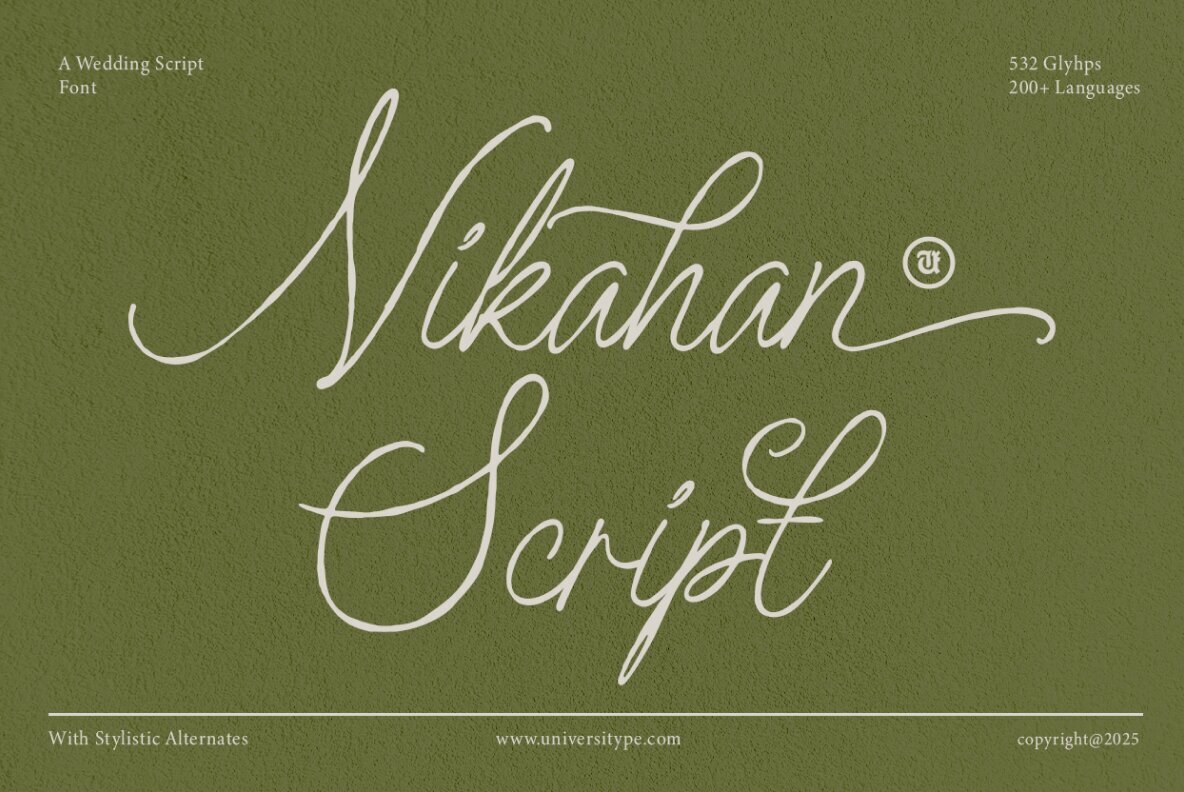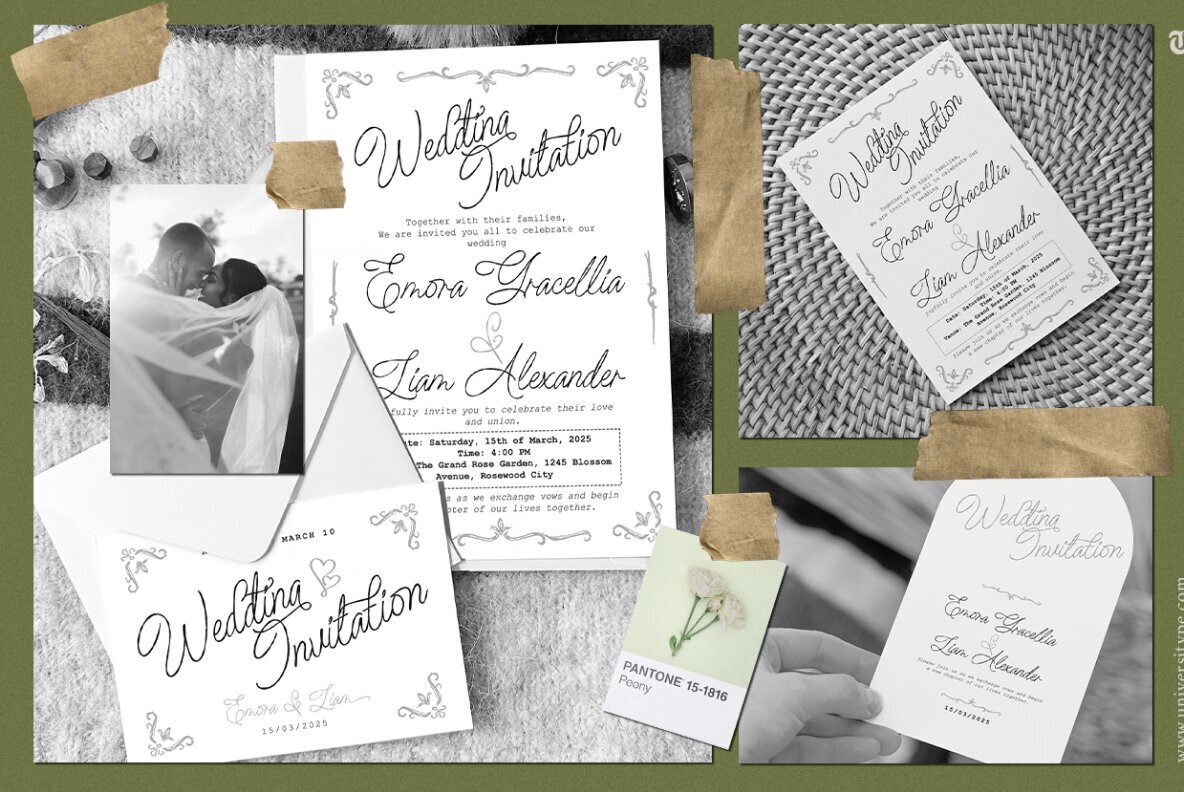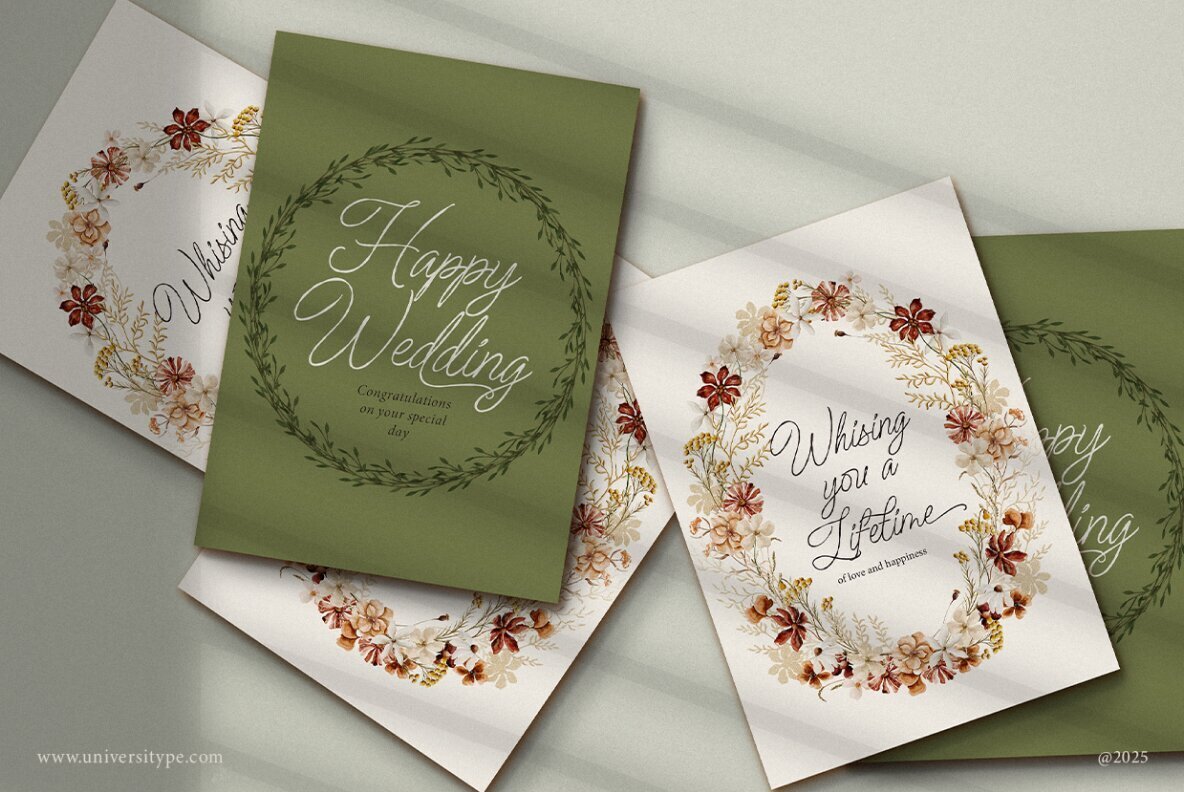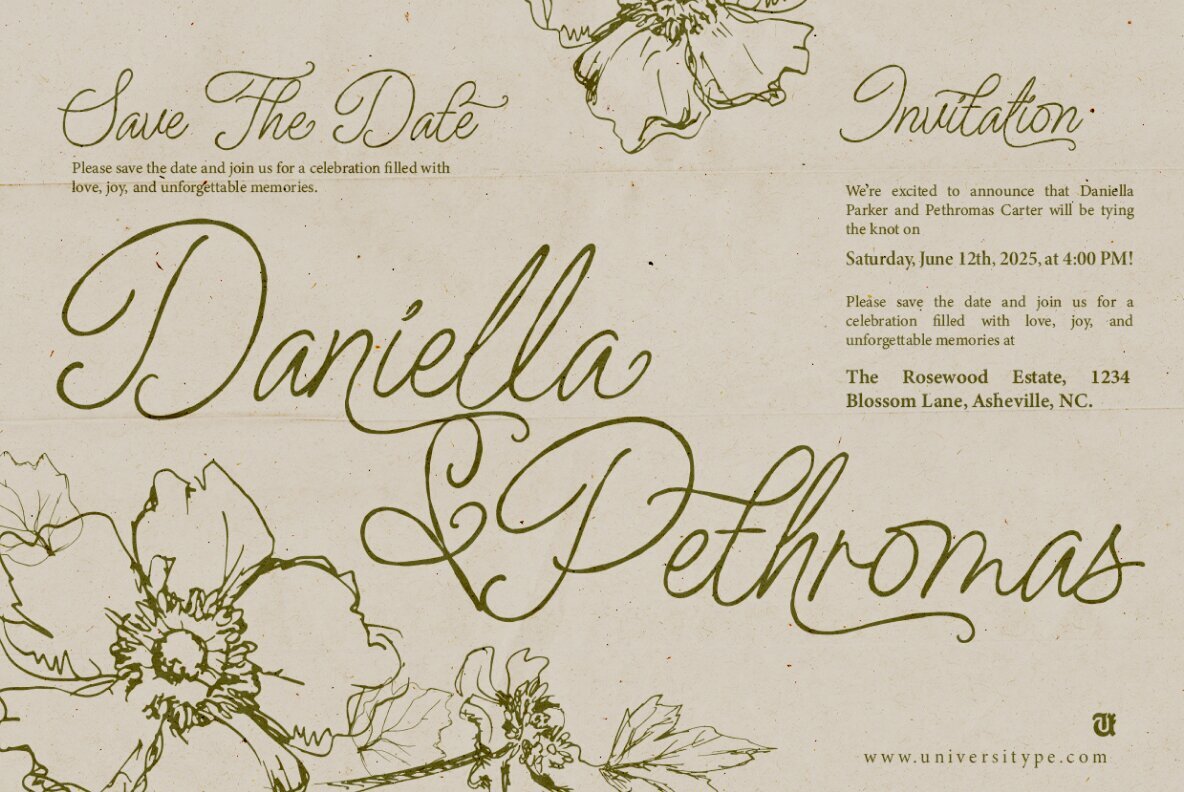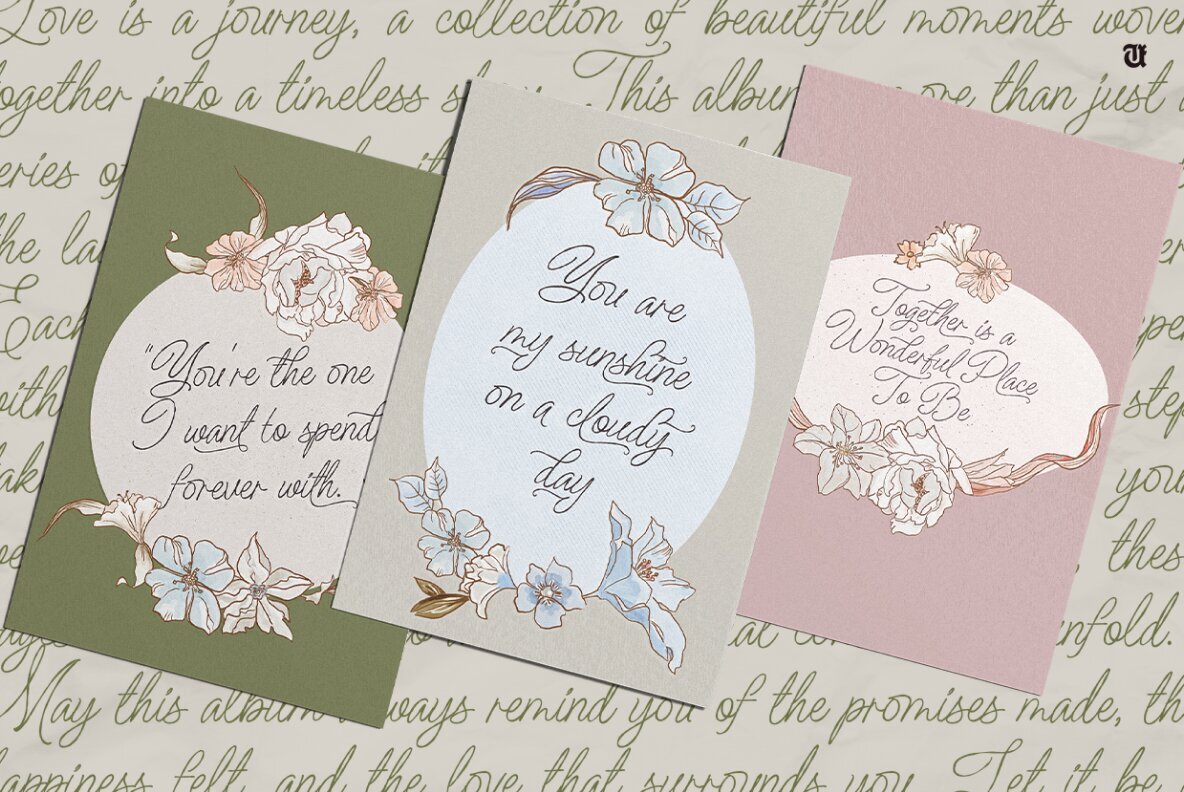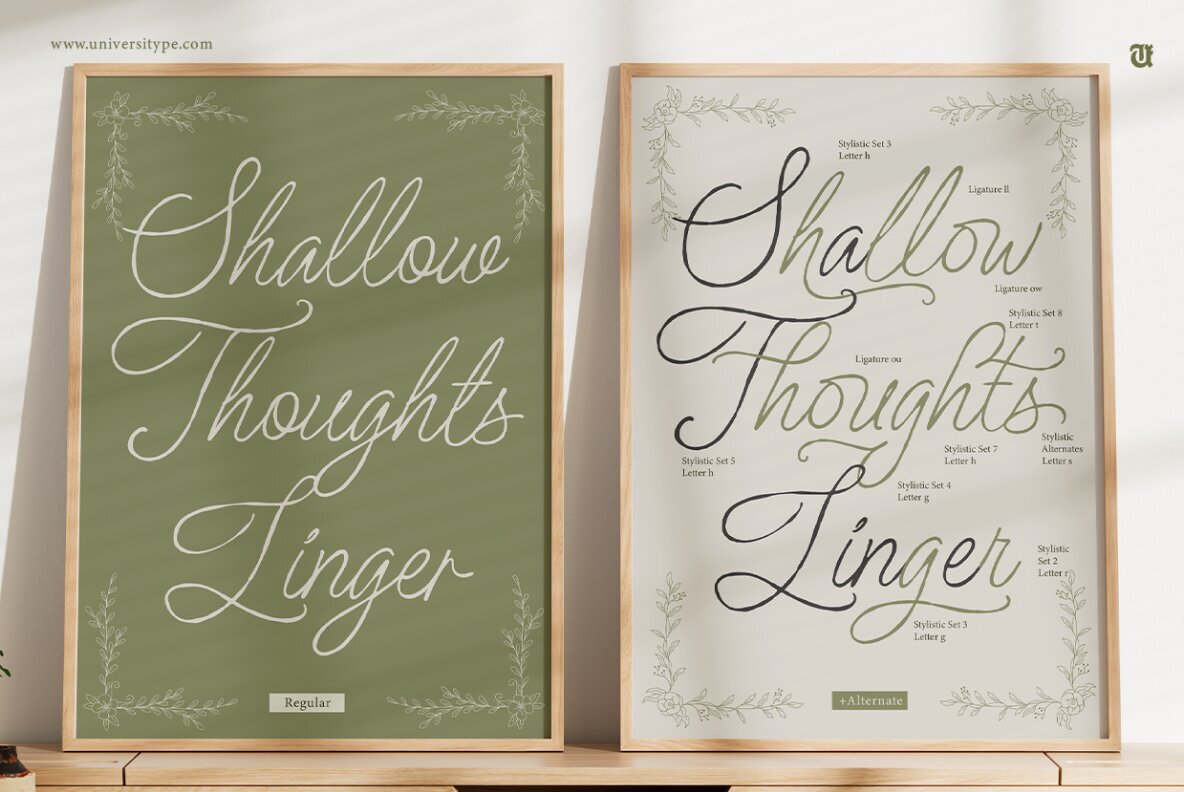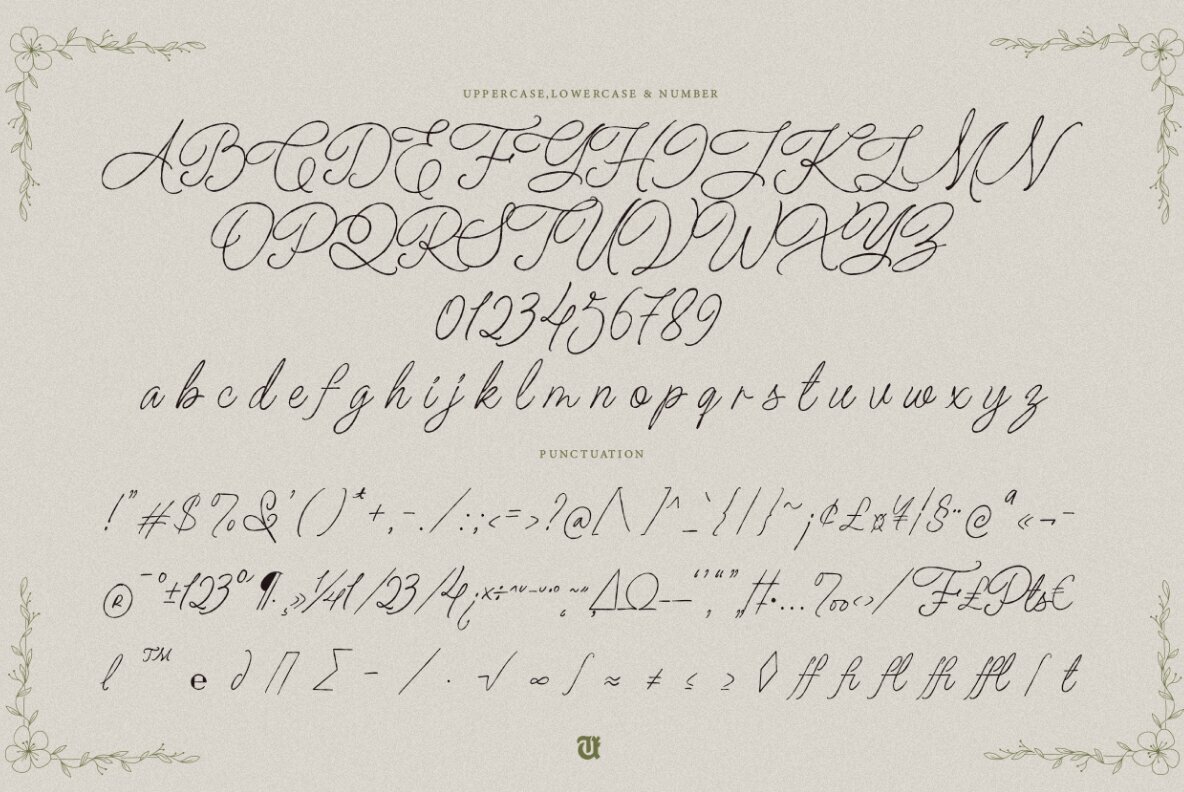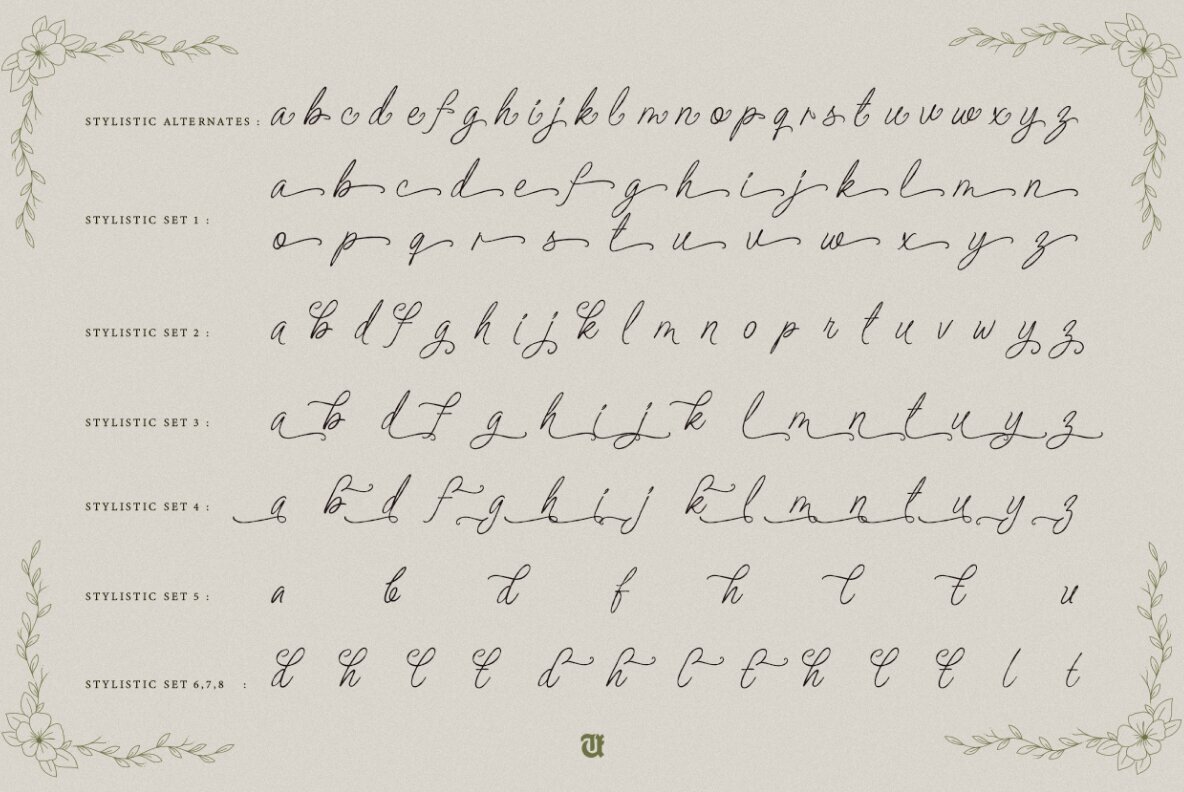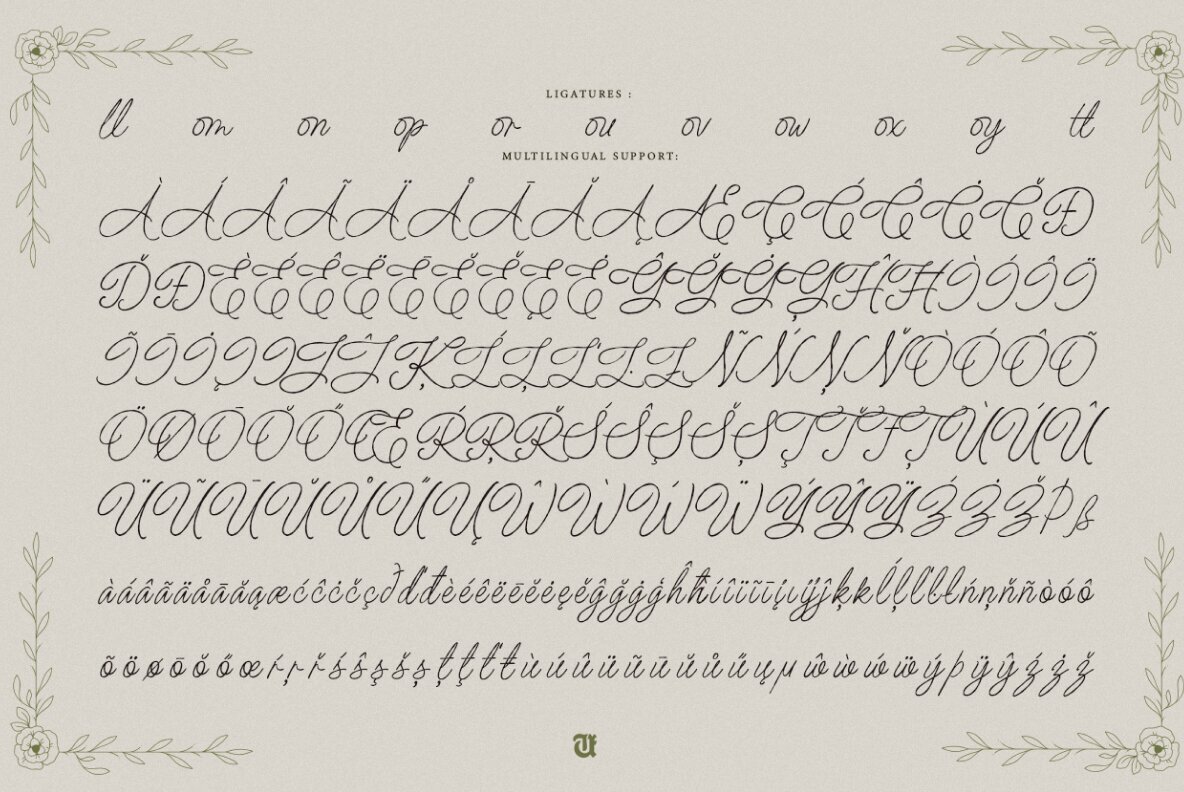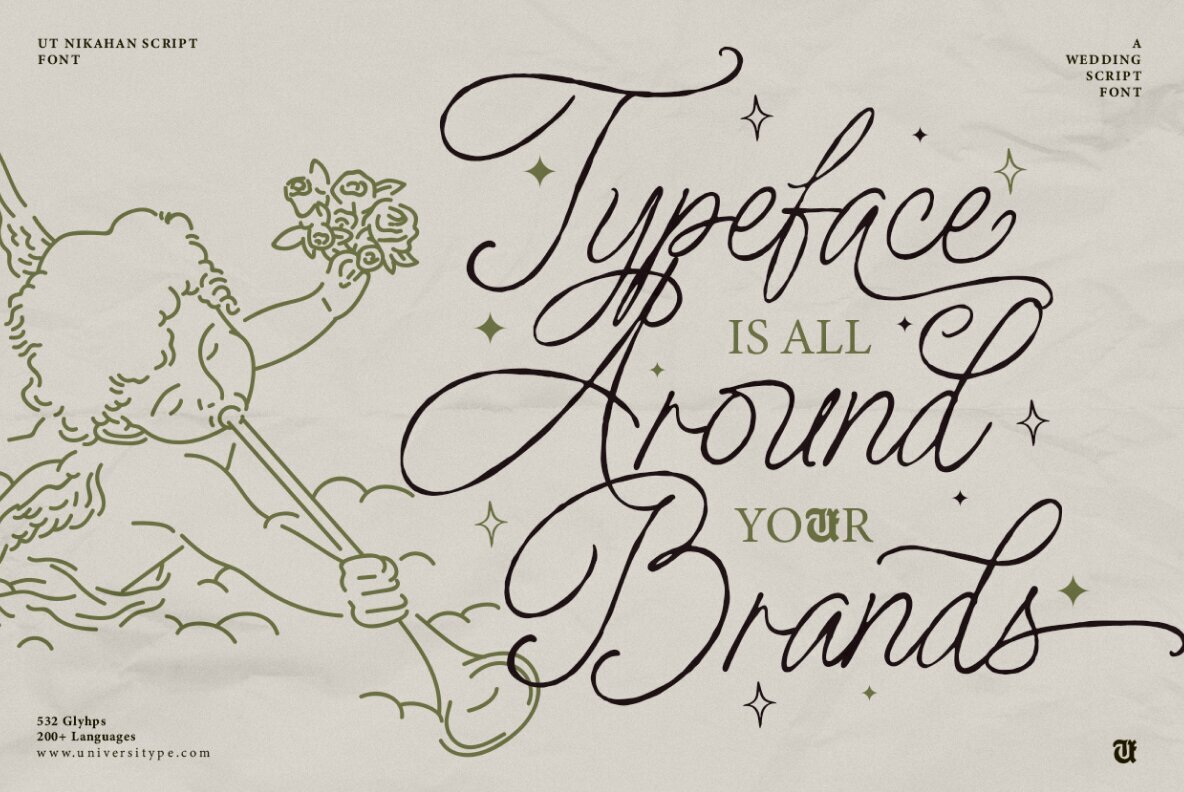
UT Nikahan Script, a beautiful wedding font with all the elegance of calligraphy. The flowing lines and fancy details make it perfect for creating romantic wedding invitations and stationery that will really wow your guests. This font is great for wedding planners, designers, and couples who want to add a bit of extra elegance and personal touch to their wedding stuff like invitations, save-the-dates, programs, and other wedding papers. Key Features: Inspiration Behind UT Nikahan Script: The font was inspired by traditional calligraphy and handwriting, capturing that special love and commitment feeling that’s at the heart of weddings. It’s a nice mix of classic elegance and modern simplicity, so it works for both traditional and contemporary wedding styles. Usage Suggestions: